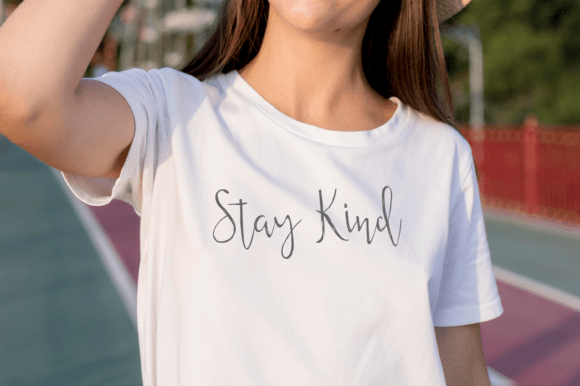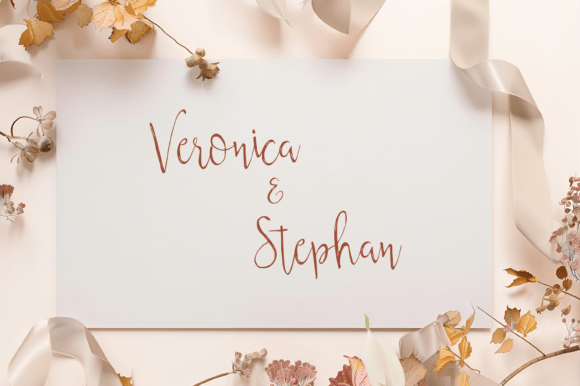
Aurora Lines Font: Elevate Your Design with a Touch of Handwritten Elegance
Are you looking for a font that adds a personal and stylish vibe to your design projects? Look no further than Aurora Lines, a beautiful handwritten script font that brings a modern, playful, and elegant touch to any design. With its smooth and natural strokes, Aurora Lines is perfect for designers who want to create stunning visual content that stands out from the crowd.
What Makes Aurora Lines Special?
Aurora Lines is a versatile font that can be used for a wide range of design projects, from branding and wedding invitations to social media quotes, greeting cards, packaging, and even merchandise such as t-shirts, tote bags, and mugs. This font is designed to bring warmth, creativity, and a trendy feel to your designs, making it a must-have for designers who want to elevate their projects with a handwritten charm.
Aurora Lines is a font that can be used in various design projects, including:
- Wedding Invitations & Save the Date Cards: Add a touch of elegance and romance to your wedding invitations and save the date cards with Aurora Lines.
- Logo & Branding Design: Create a unique and memorable brand identity with Aurora Lines, perfect for businesses that want to stand out.
- Social Media Templates & Quotes: Elevate your social media content with stunning quotes and templates designed with Aurora Lines.
- Greeting Cards & Stationery: Add a personal touch to your greeting cards and stationery with Aurora Lines.
- Packaging Design: Create eye-catching packaging designs that reflect your brand’s personality with Aurora Lines.
- Apparel & Merchandise: Design stunning apparel and merchandise, such as t-shirts, tote bags, and mugs, with Aurora Lines.
Why Choose Aurora Lines?
There are many reasons why Aurora Lines is a great choice for designers and crafters:
- Unique and Handwritten: Aurora Lines is a handwritten script font that adds a personal and stylish vibe to any design project.
- Versatile: This font can be used for a wide range of design projects, from branding and wedding invitations to social media quotes and merchandise.
- Elegant and Modern: Aurora Lines brings a modern, playful, and elegant touch to any design, making it perfect for designers who want to create stunning visual content.
Aurora Lines is a beautiful handwritten script font that brings a modern, playful, and elegant touch to any design project. With its smooth and natural strokes, versatility, and PUA encoding, this font is perfect for designers who want to elevate their projects with a handwritten charm. Whether you’re designing wedding invitations, branding, social media quotes, or merchandise, Aurora Lines is a must-have font that will help you create stunning visual content that stands out from the crowd.